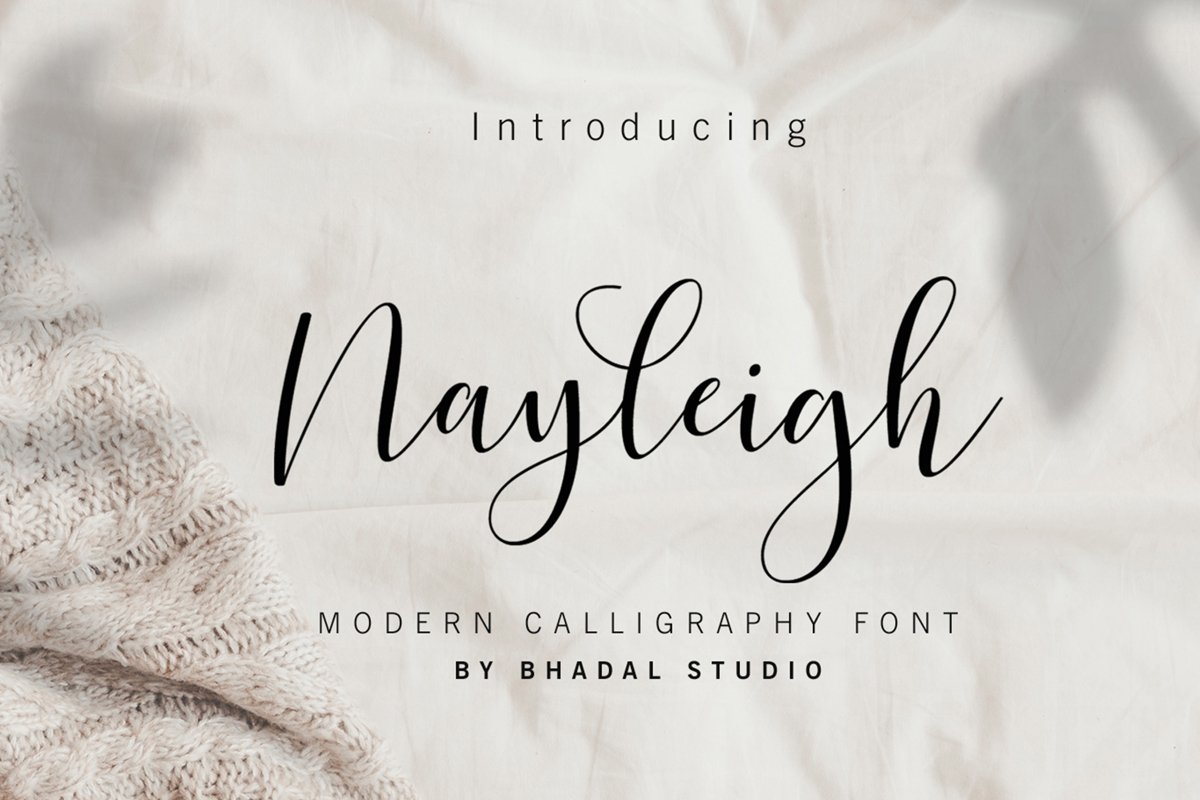
NAYLEIGH SCRIPT
Nayleigh
NAYLEIGH is modern calligraphy font. It is so chic and perfect for invitations, branding, lovely Instagram posts, and editorial design.
Nayleigh includes full set of uppercase and lowercase letters, multilingual symbols, numerals, punctuation and ligatures. Also it includes stylistic alternates and ending lowercase swashes.